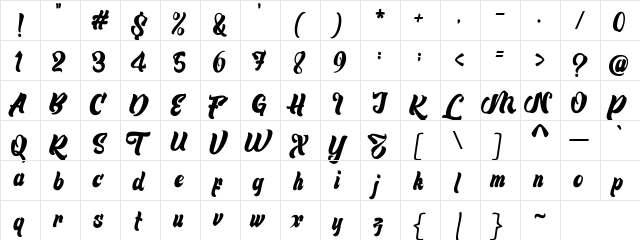
Rosella Demo Regular
| Foundry | @telllu_craft |
| Designer | Ilhamtaro |
Design Context for Rosella Demo Typeface
Rosella Demo is a composed and adaptable typeface that performs quietly and consistently across a wide range of design contexts.